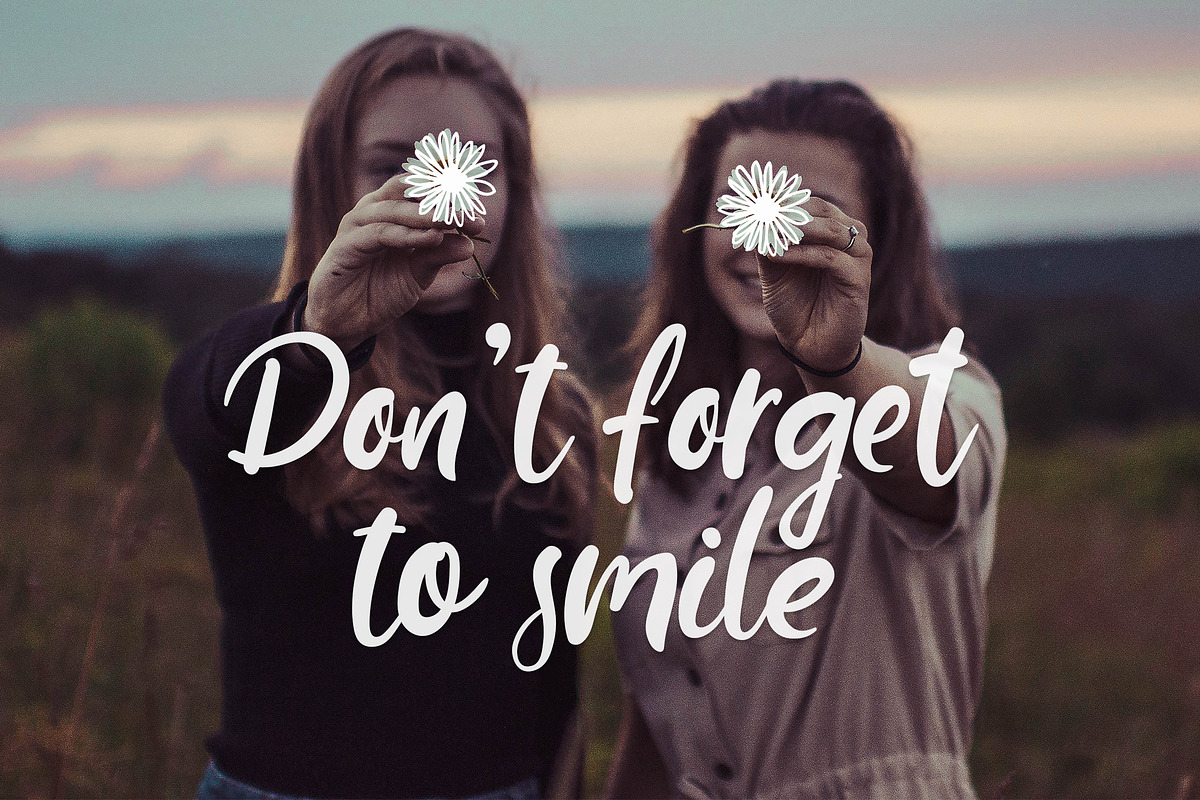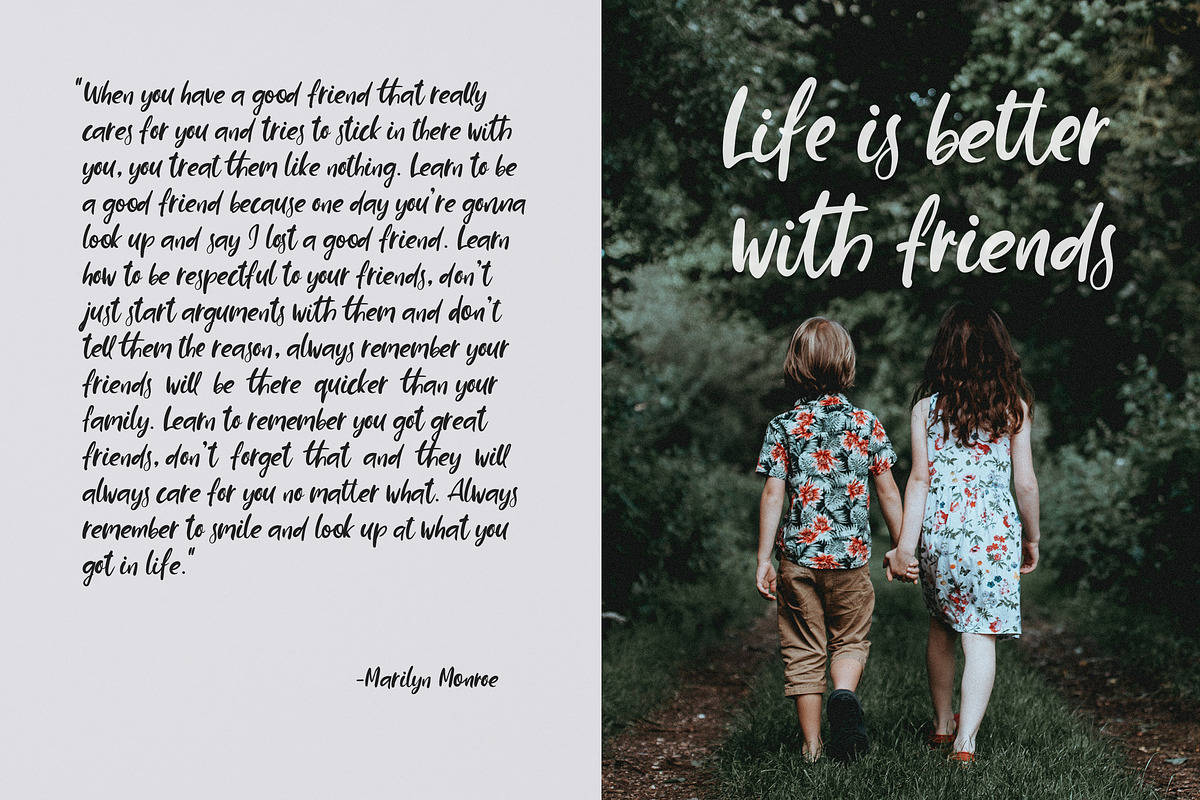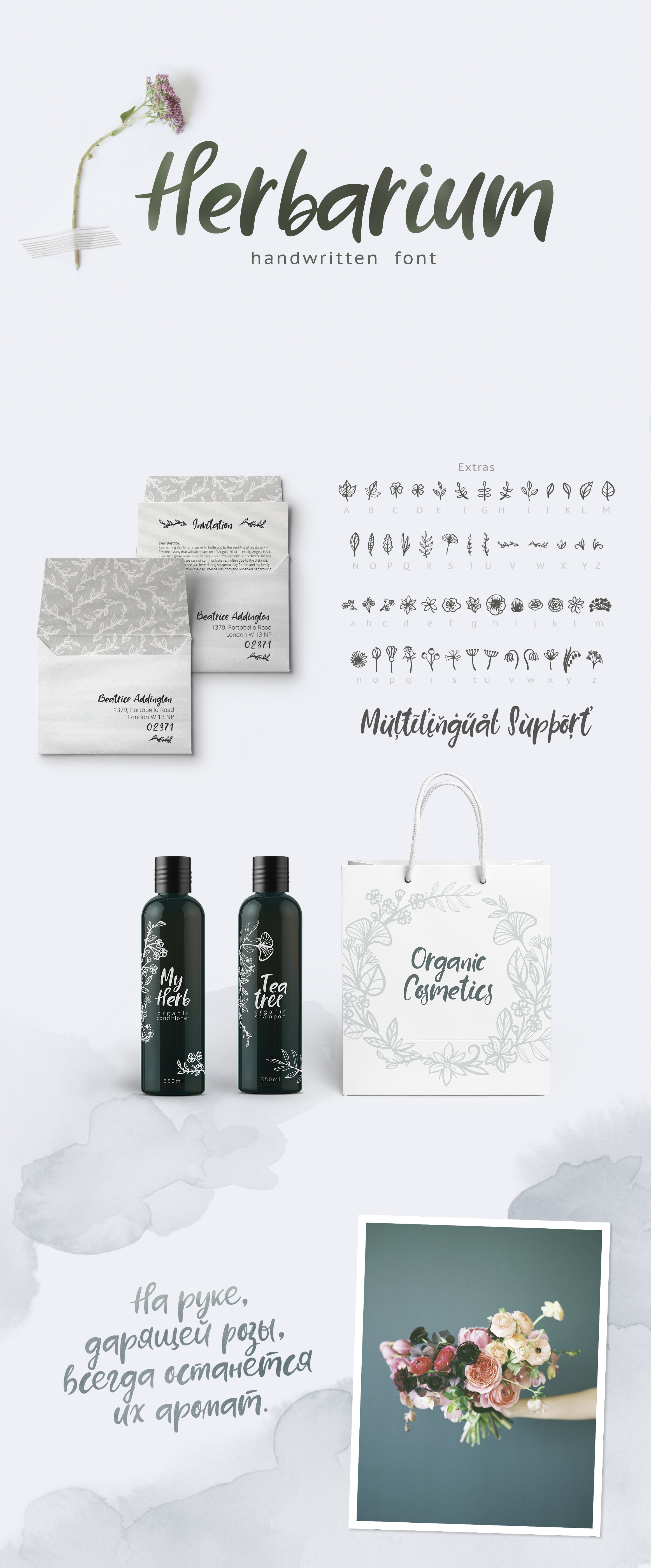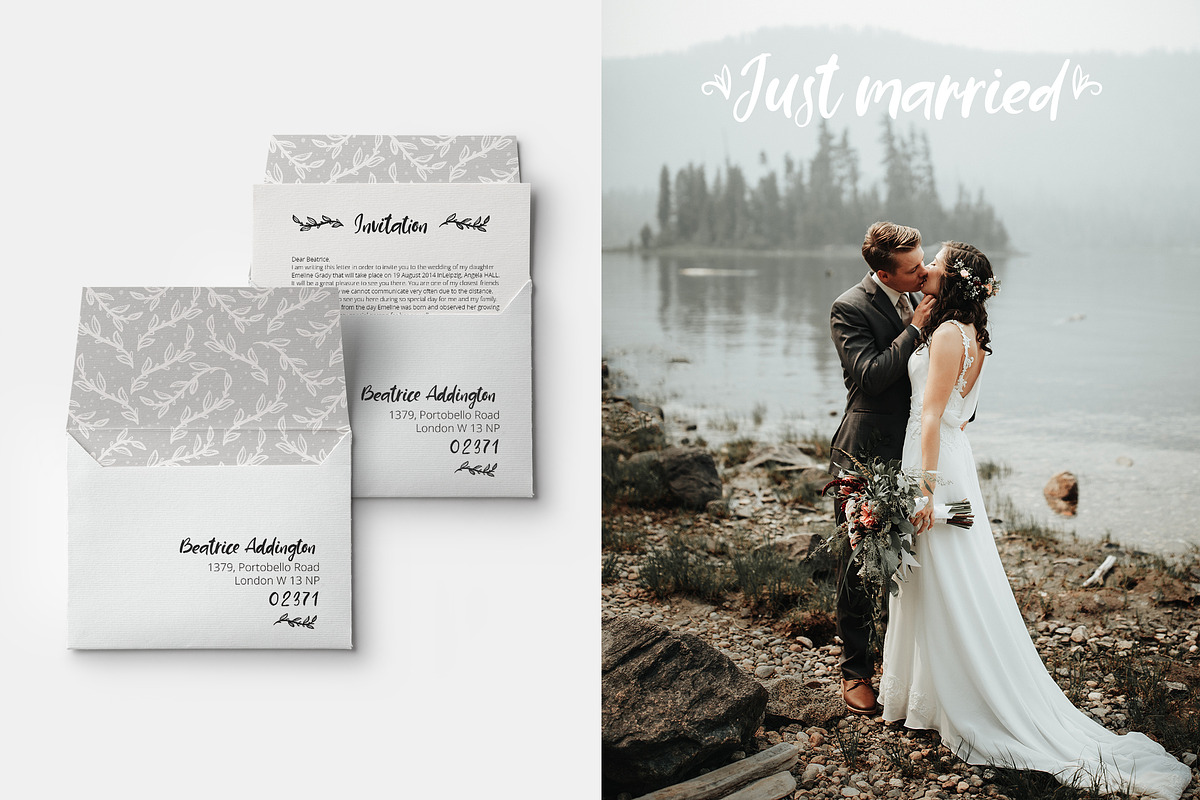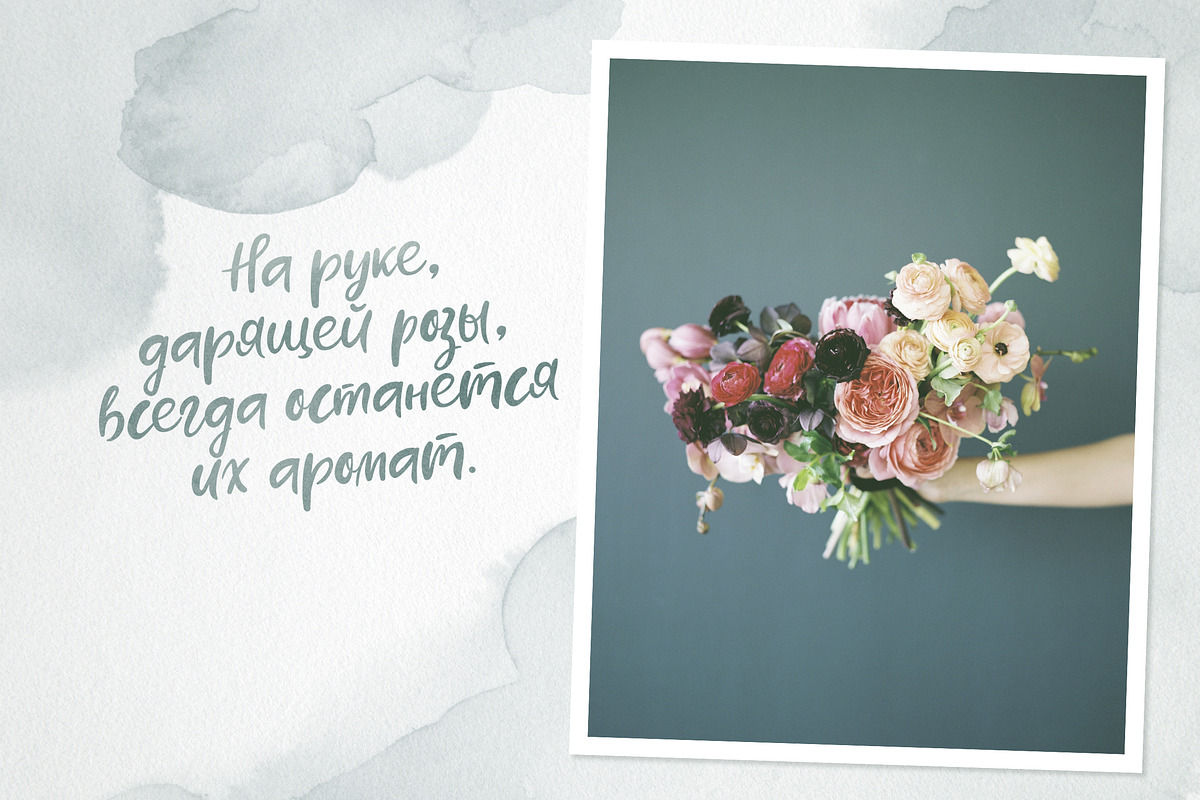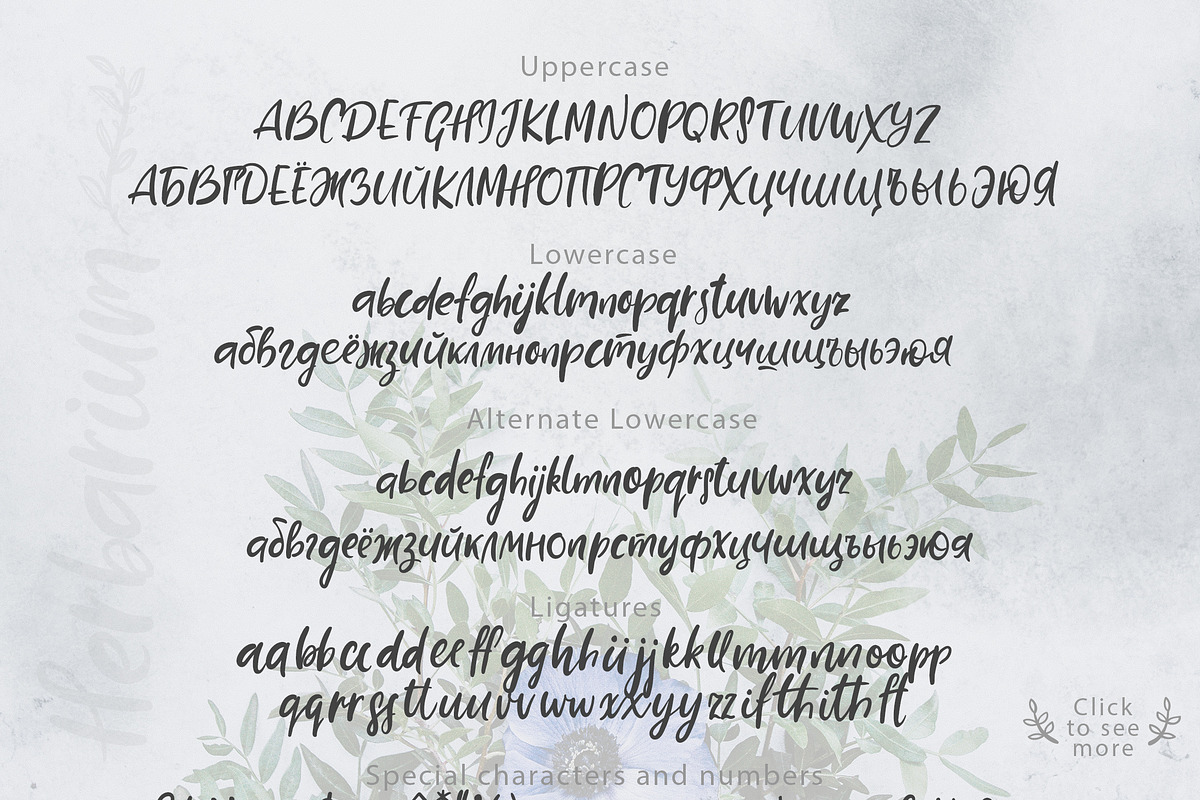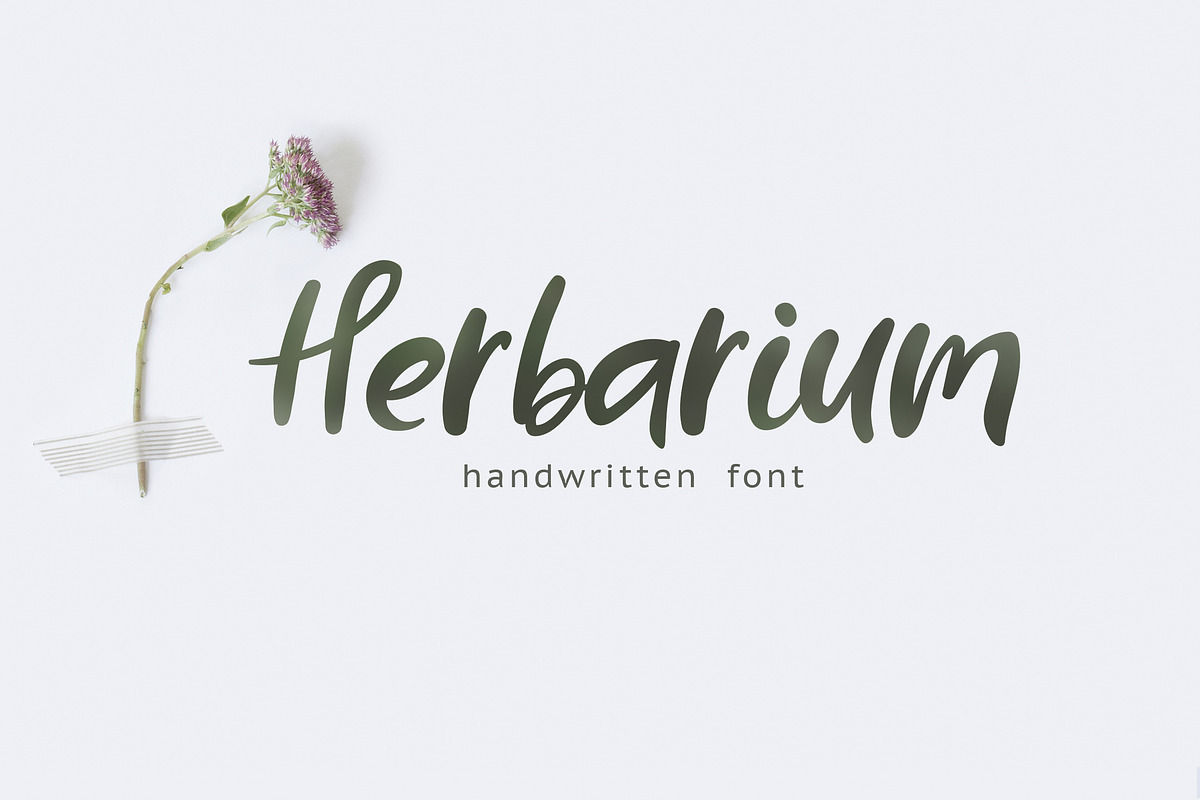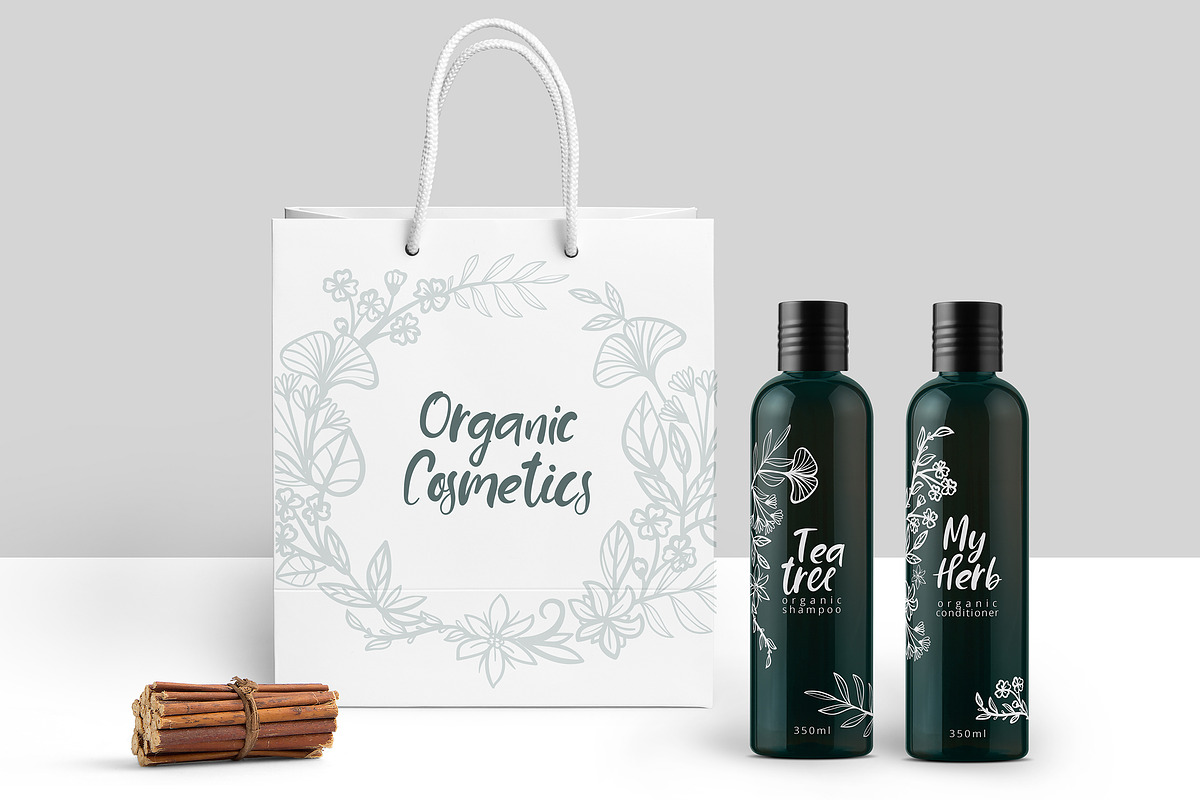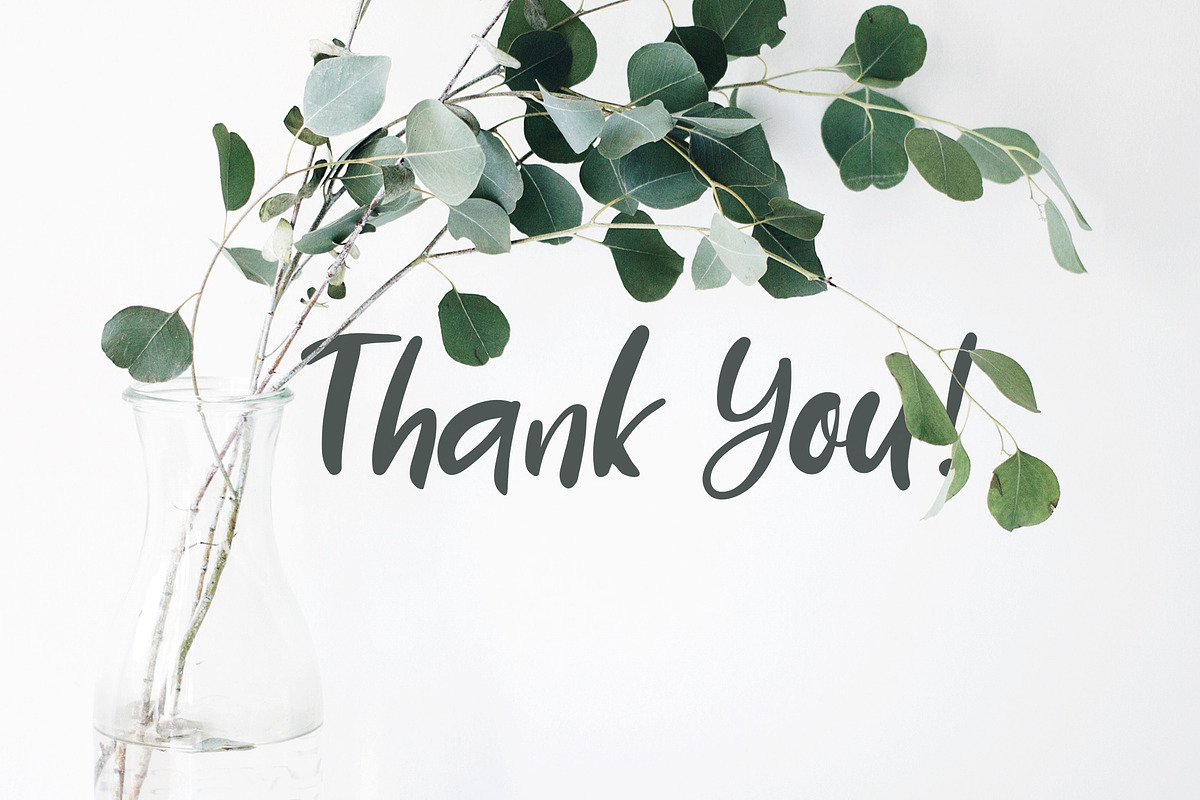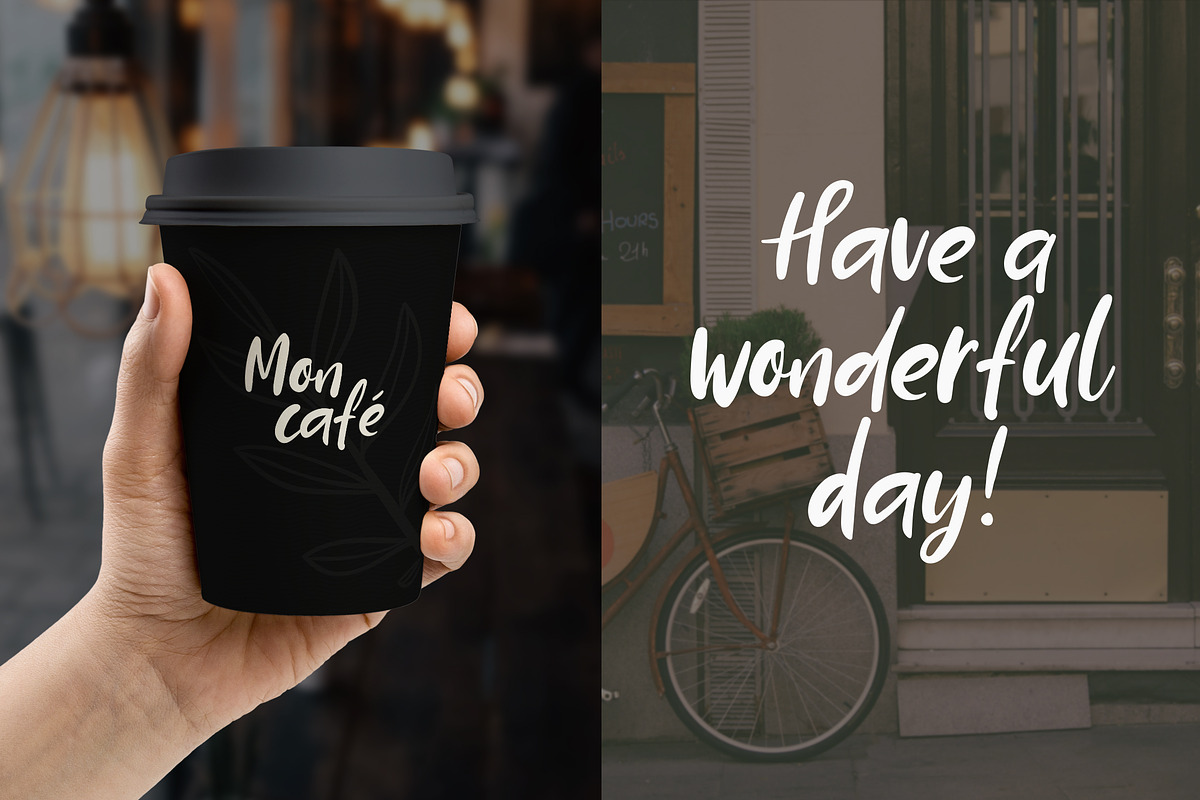
Herbarium font + EXTRAS
Introducing the exquisite font Herbarium - a handwritten botanical treasure!
Herbarium is more than just a font; it's a botanical journey captured in every stroke. With its ligatures and extensive set of lowercase alternates, this font adds a touch of realism and natural beauty to your text.
Step into a world of endless creative possibilities with Herbarium. From branding projects to wedding invitations and cards, this font brings a sense of organic elegance to your designs. Create captivating headings, add a personal touch to your signatures, elevate your product packaging, infuse quotes with a botanical charm, design delightful greeting cards, craft memorable logos, adorn overlays with floral accents, and explore countless other applications.
But that's not all! Herbarium also comes with an Extra style, featuring 56 meticulously hand-drawn flowers and leaves. These delicate elements provide you with even more versatility and allow you to create stunning compositions that breathe life into your designs.
In addition to English,Herbarium supports the main European and Russian Languages, ensuring that you can effortlessly bring its natural beauty to projects across different cultures and regions.
Immerse yourself in the enchanting world of Herbarium and let its botanical grace and versatility inspire your creative endeavors.